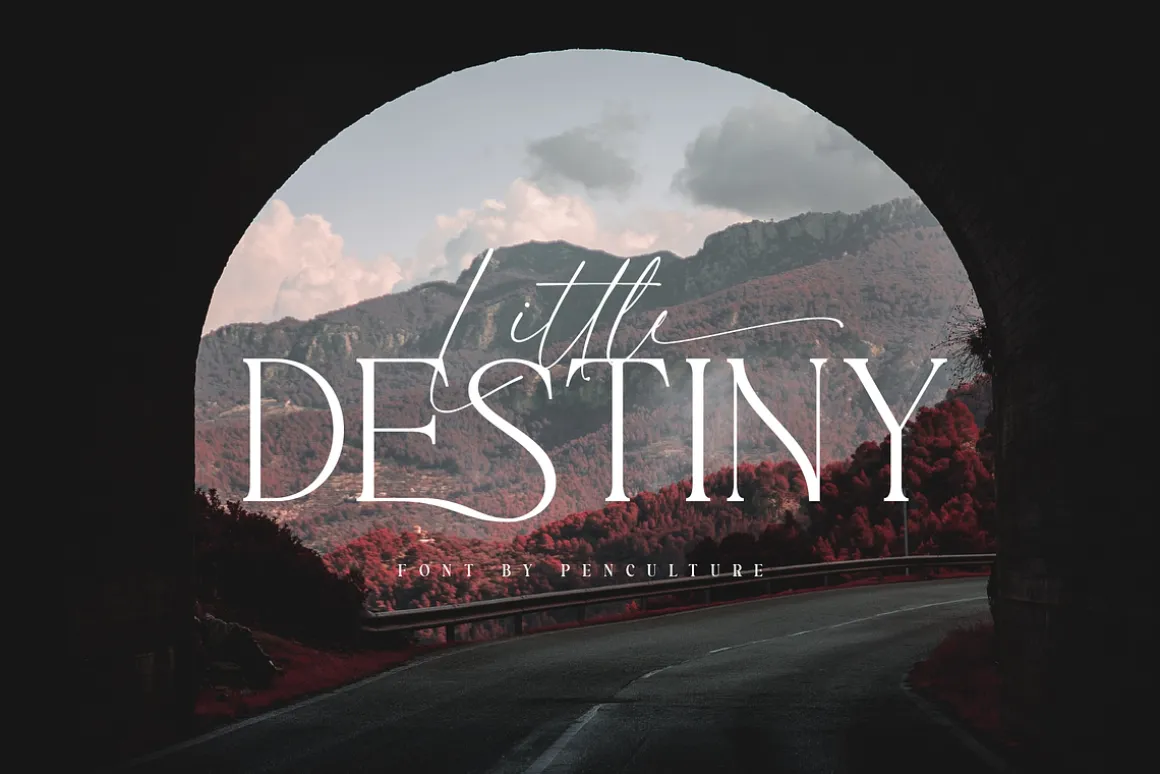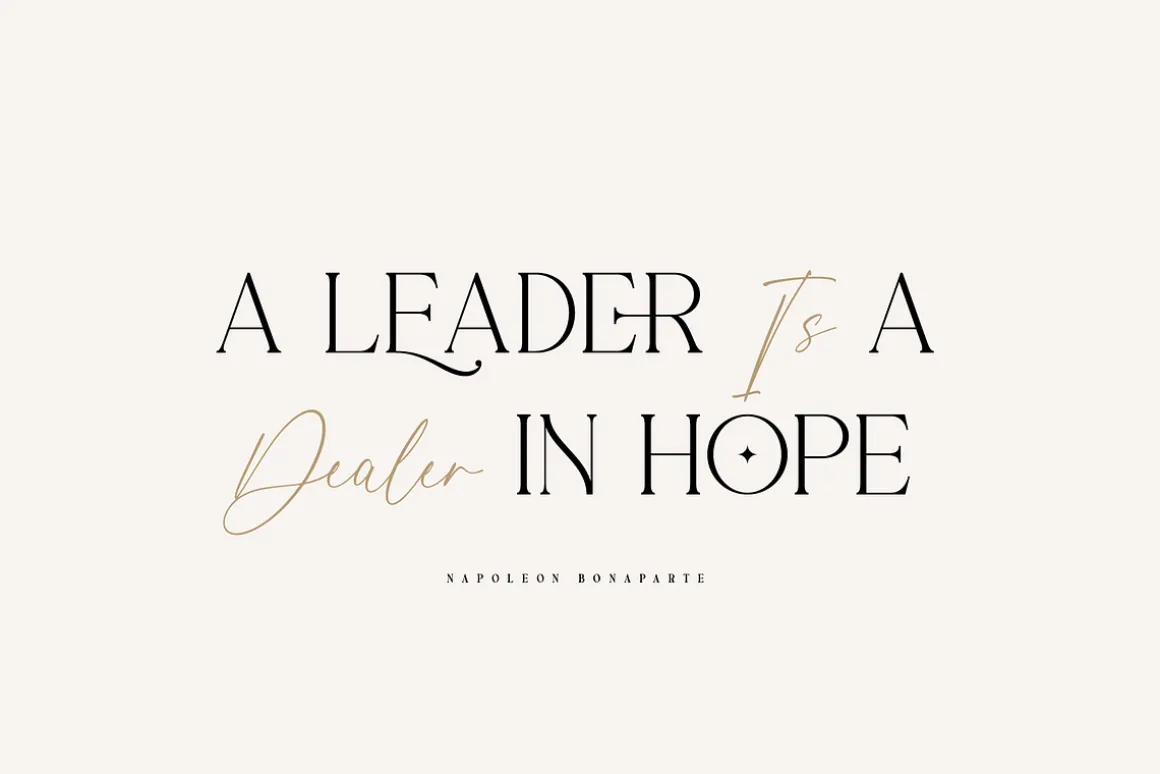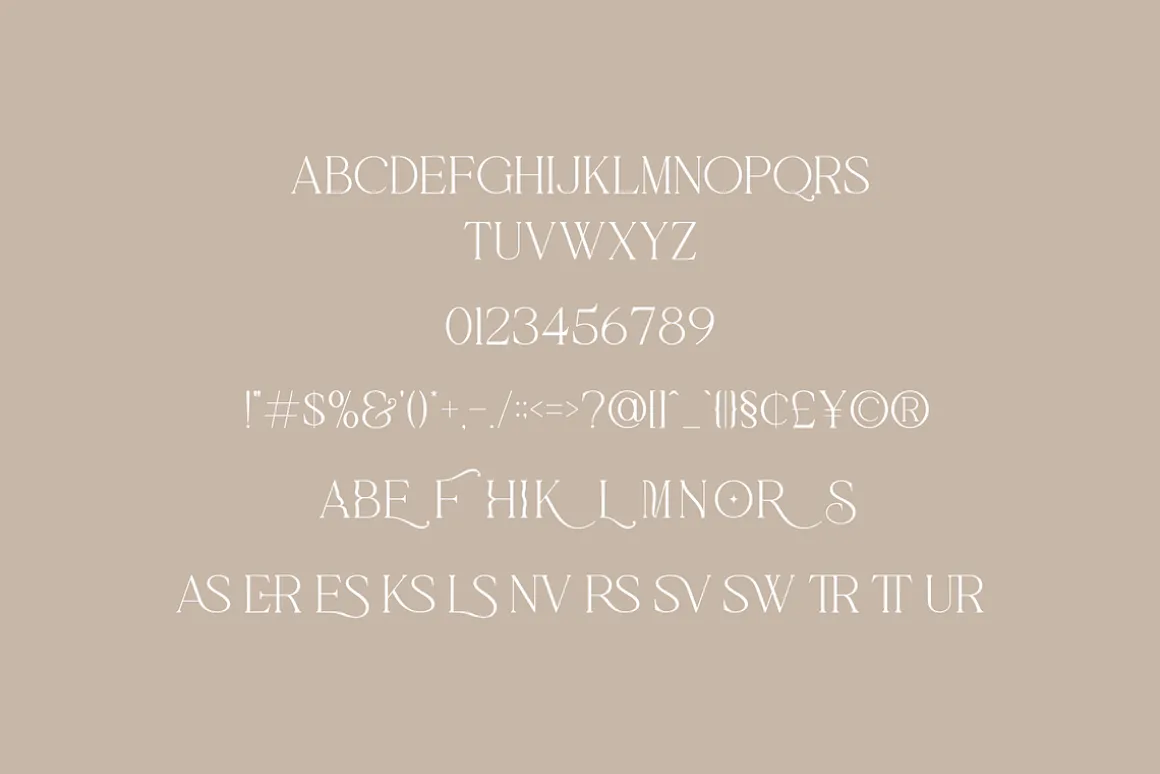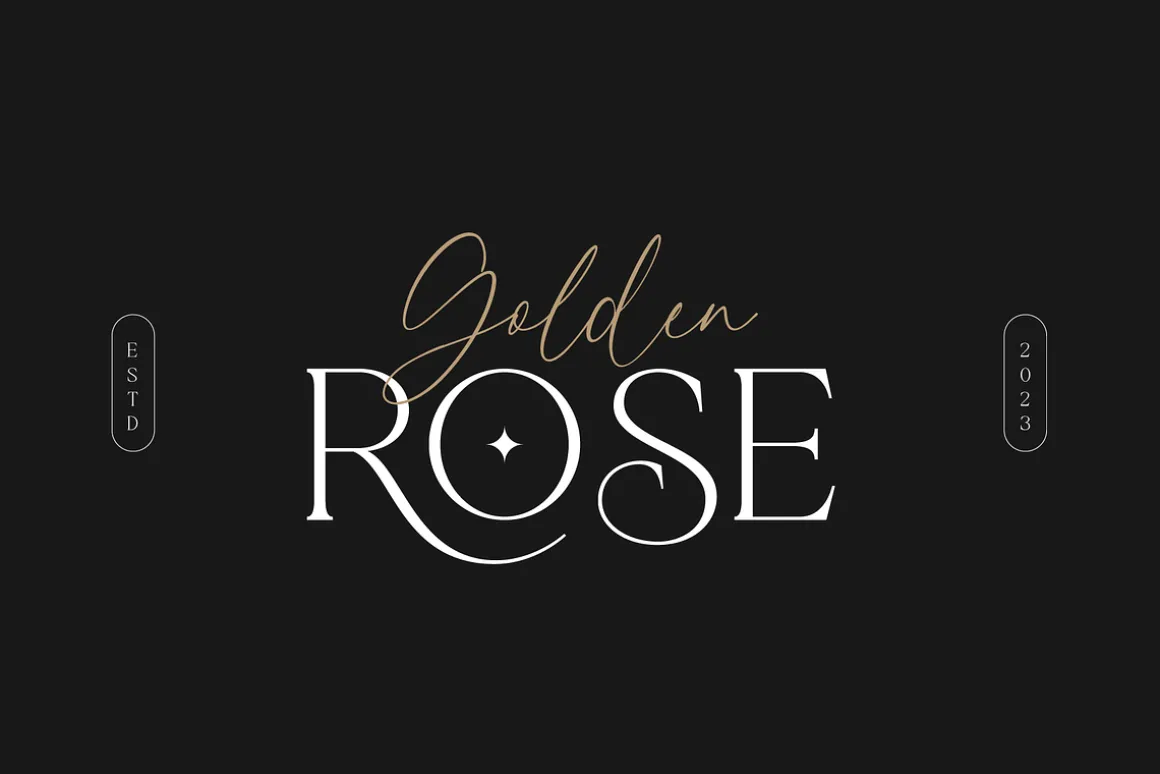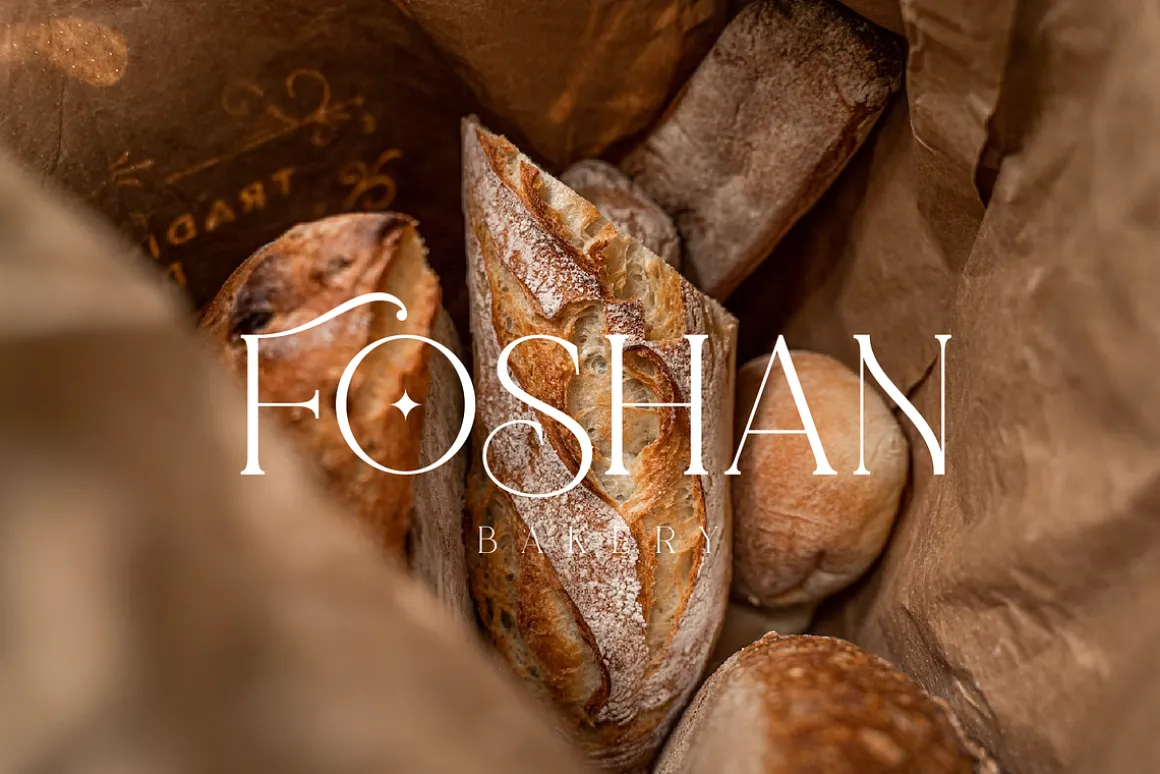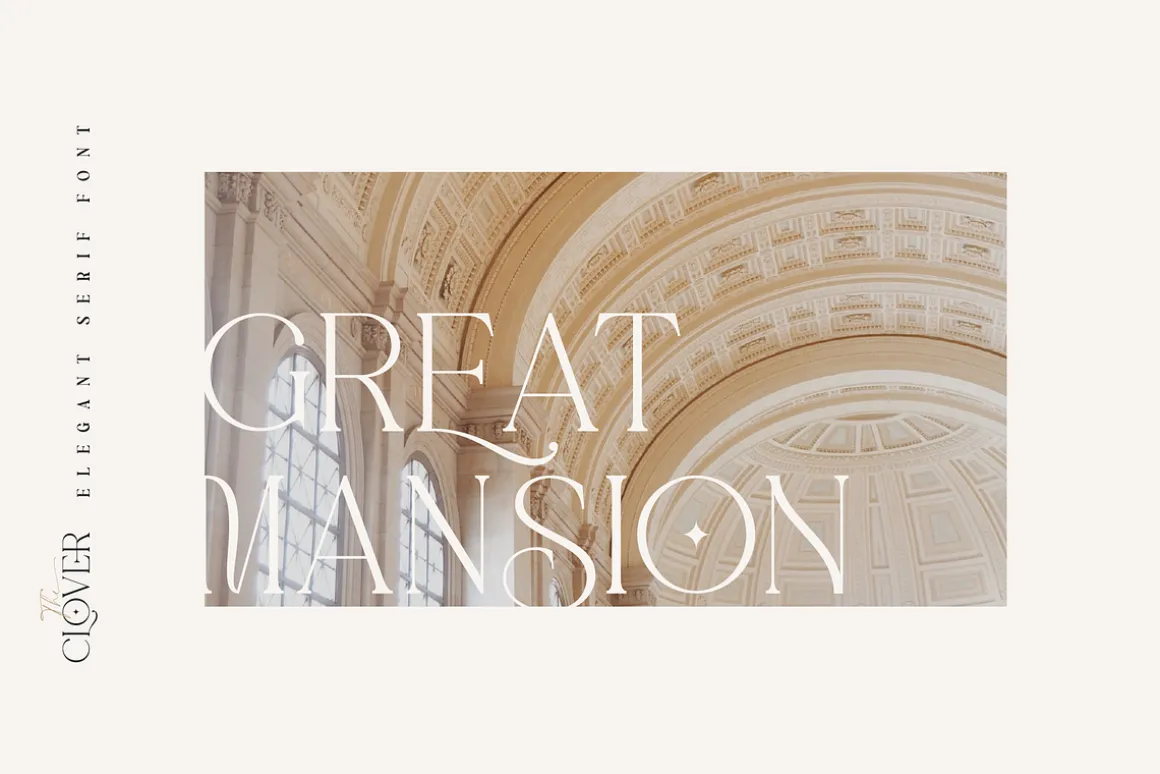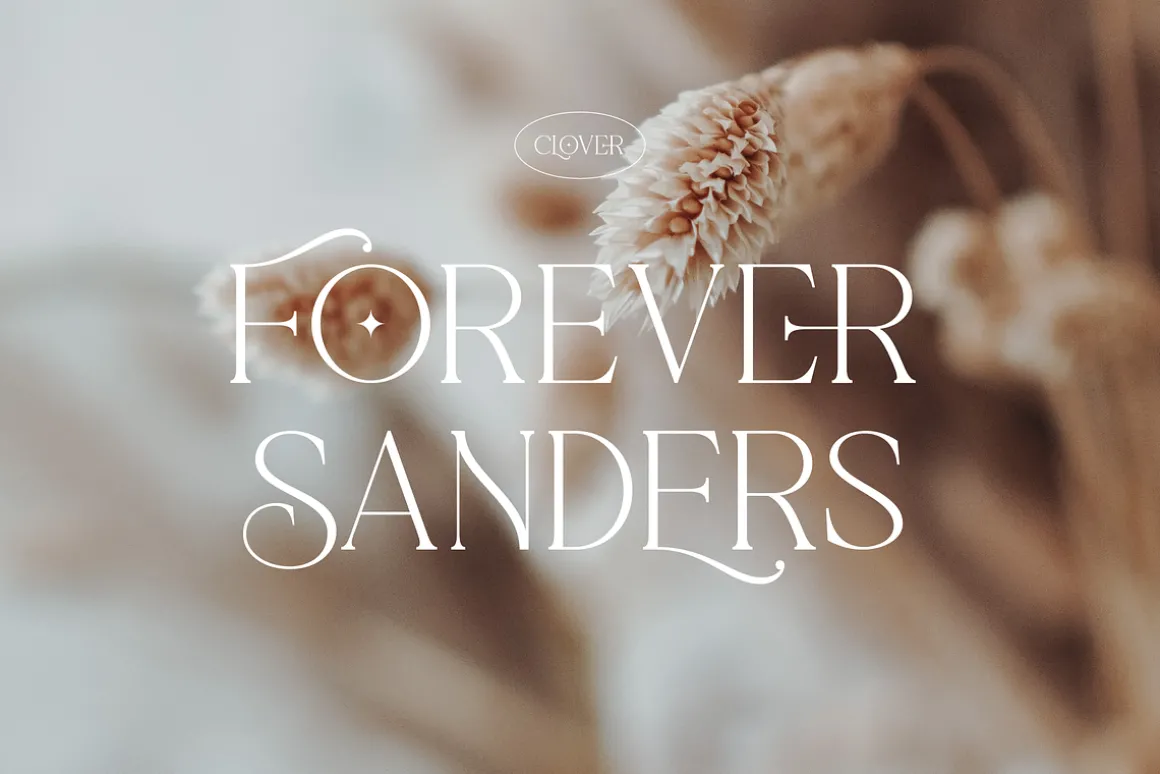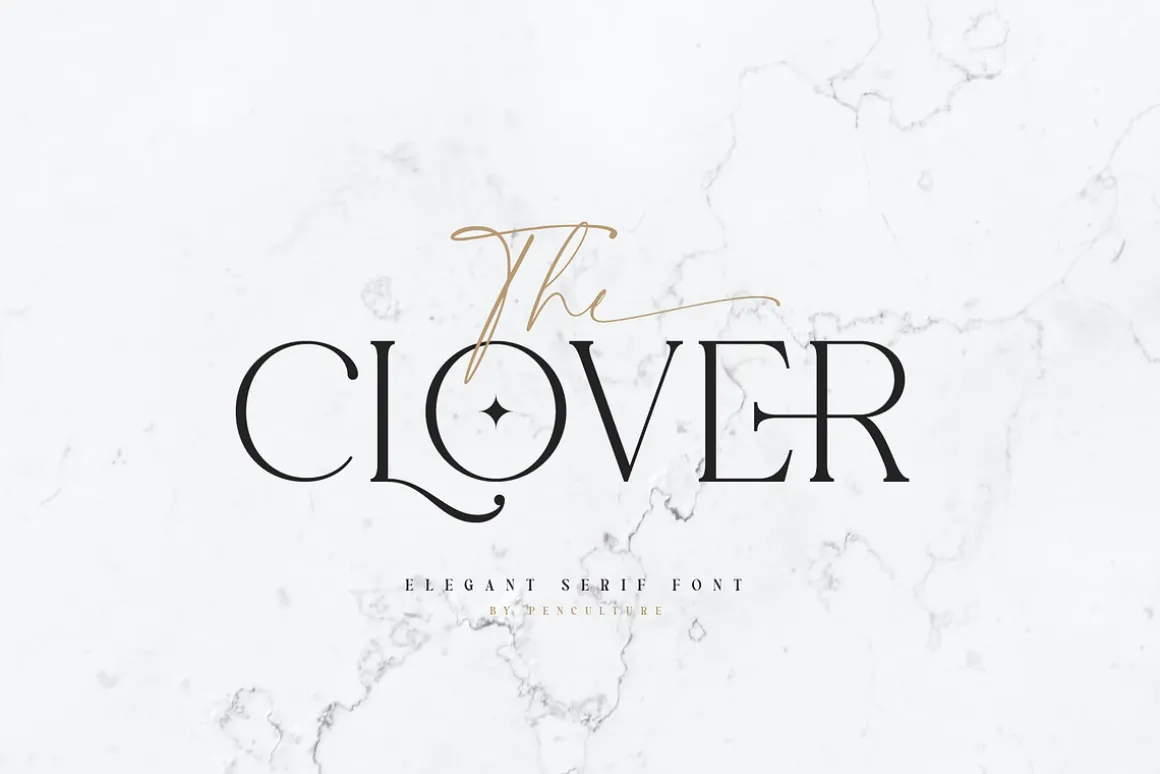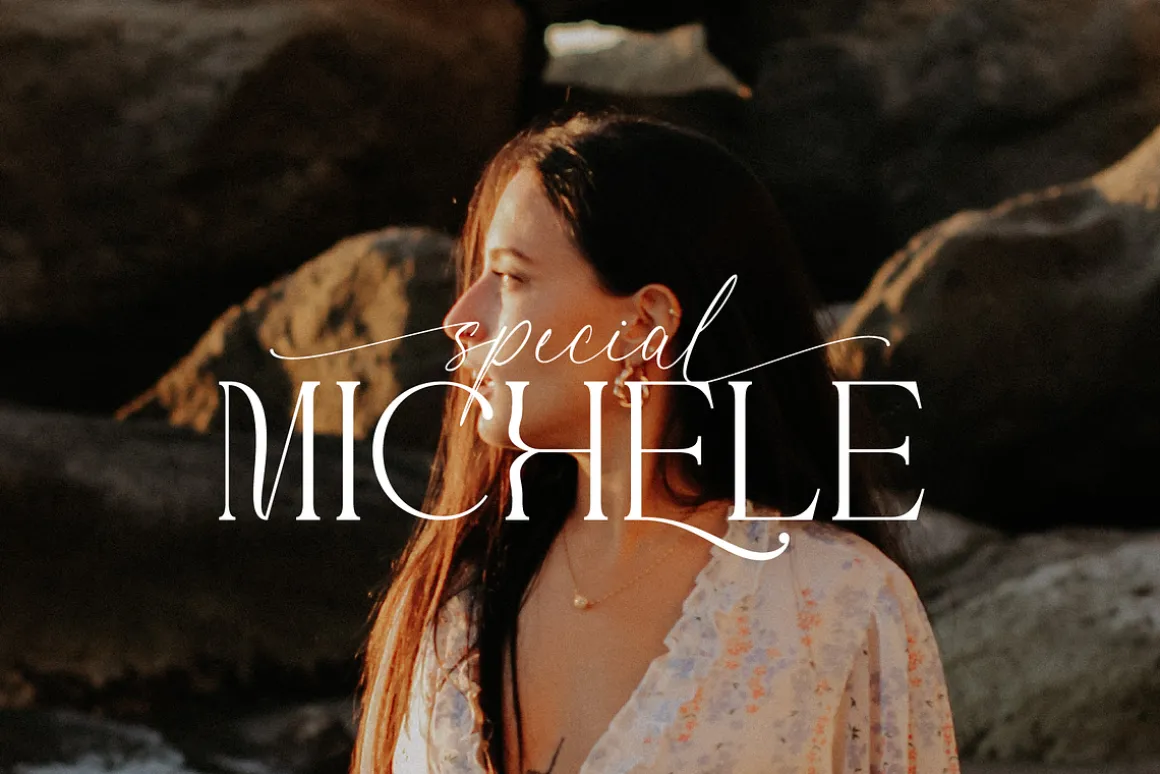
Introducing The Clover, a stunning duo font that combines the timeless elegance of a serif typeface with the fluid grace of calligraphy. This versatile font set includes two complementary styles that work together seamlessly to add sophistication and charm to your design projects.
The serif font is a classic and refined typeface that exudes elegance and professionalism. Its clean lines and sharp angles create a sense of precision and authority, making it perfect for formal documents, headlines, and branding materials.
In contrast, the calligraphy font is a more decorative and ornate style that evokes a sense of fluidity and movement. Its graceful curves and flowing lines create a sense of beauty and grace, making it ideal for invitations, wedding materials, and other special occasions.
When used together, the serif and calligraphy fonts complement each other perfectly to create a stunning visual contrast that captures attention and creates a lasting impression. Whether you’re designing a logo, brochure, or wedding invitation, The Clover is the perfect choice for adding a touch of sophistication and style.